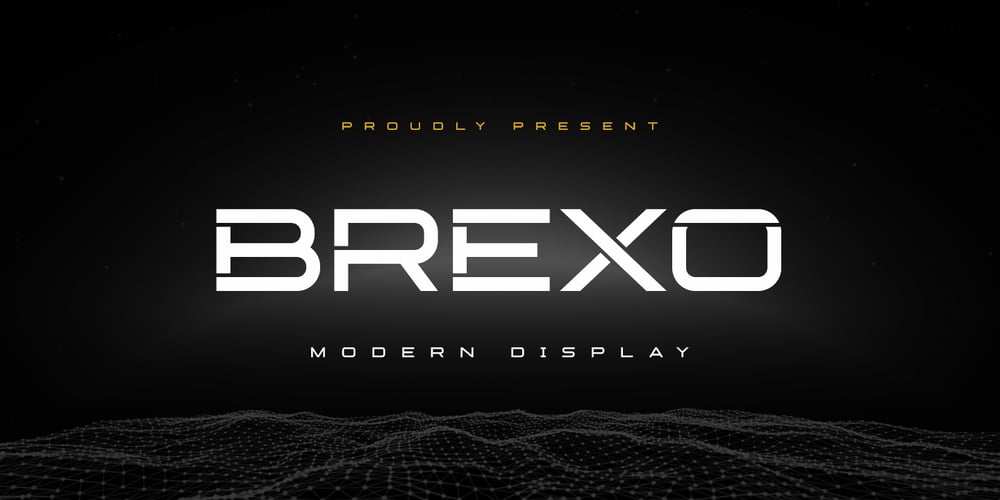
Brexo Font Family was designed by Abdul Malik Wisnu and published by Almarkha Type. Brexo contains 2 styles and family package options. Hello Everyone, Introduce our new collection, Brexo – Extended Sans Display famous logos of Technology and brands that have very strong characteristics, very suitable for posters, t-shirt, packaging, branding, logotype and more.Brexo font with strong and challenging nuances. very suitable for the title, typography, clothes, Poster, magazines, brochures, packaging,Websites and much more for your design needs, making your designs more modern and professional.